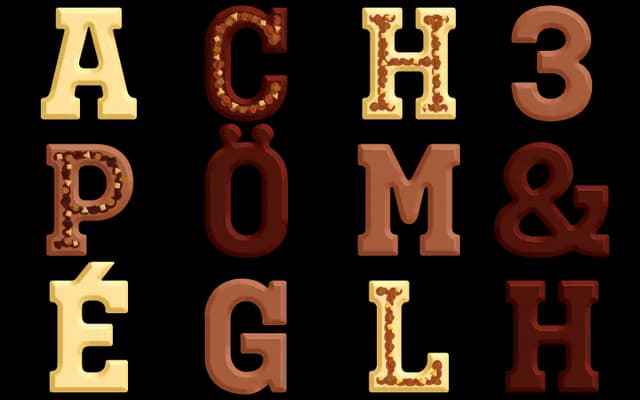
Niklaas
A COLR/CPAL and SVG color font from Typearture, offered in three chromatic styles with a bonus Ruby variant in the complete package.
Niklaas is a color font using both COLR/CPAL and SVG technologies, requiring compatibility checks before use. Three named styles, White, Milk and Pure, are sold individually or as a complete bundle that adds a bonus Ruby style. Coverage spans Basic Latin, Western European, Central European and South European character sets across 361 glyphs.
Niklaas is a COLR/CPAL and SVG color font with multiple chromatic styles, placing it firmly in the display category as a decorative, technically specialised typeface designed for visual impact rather than extended text setting.